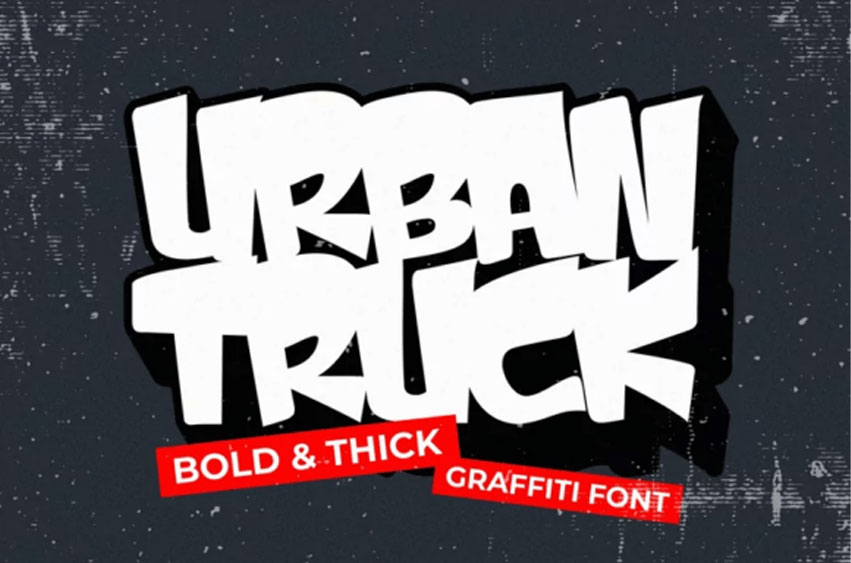
Urban Truck Font
Urban Truck Font is a bold and commanding graffiti font designed to bring a raw, urban vibe to your projects. With its thick strokes and rugged appearance, this font captures the essence of street art and urban culture.
Urban Truck is more than just a font—it’s a bold statement piece, perfect for anyone looking to infuse their designs with urban flair and street-inspired energy.